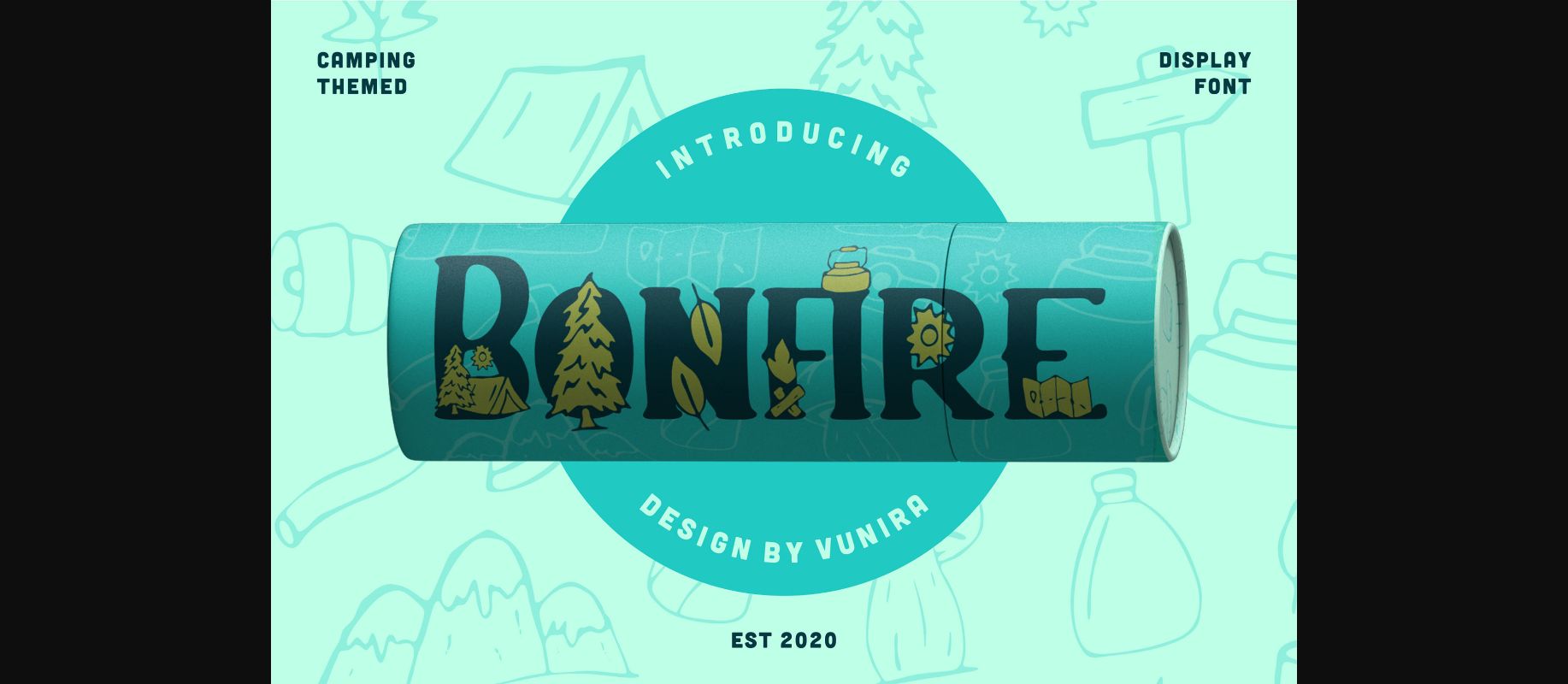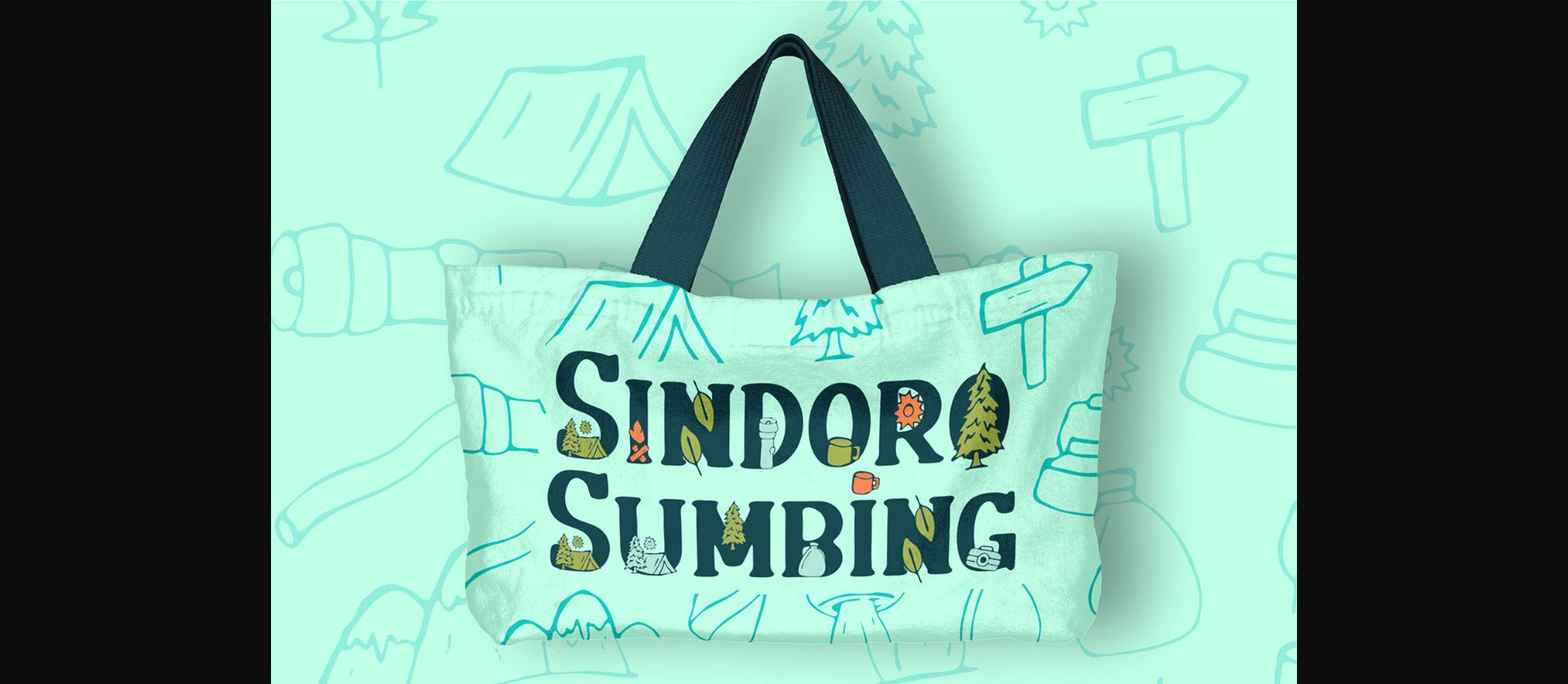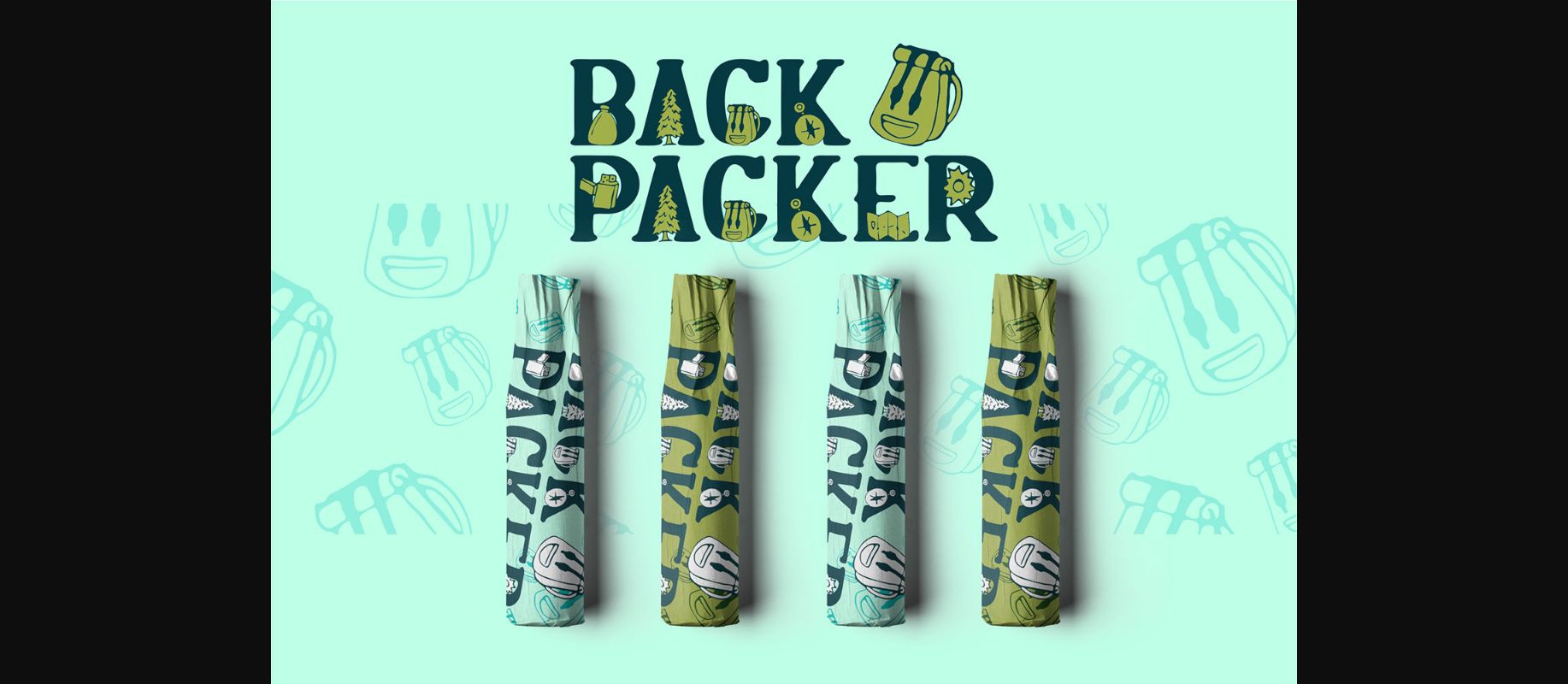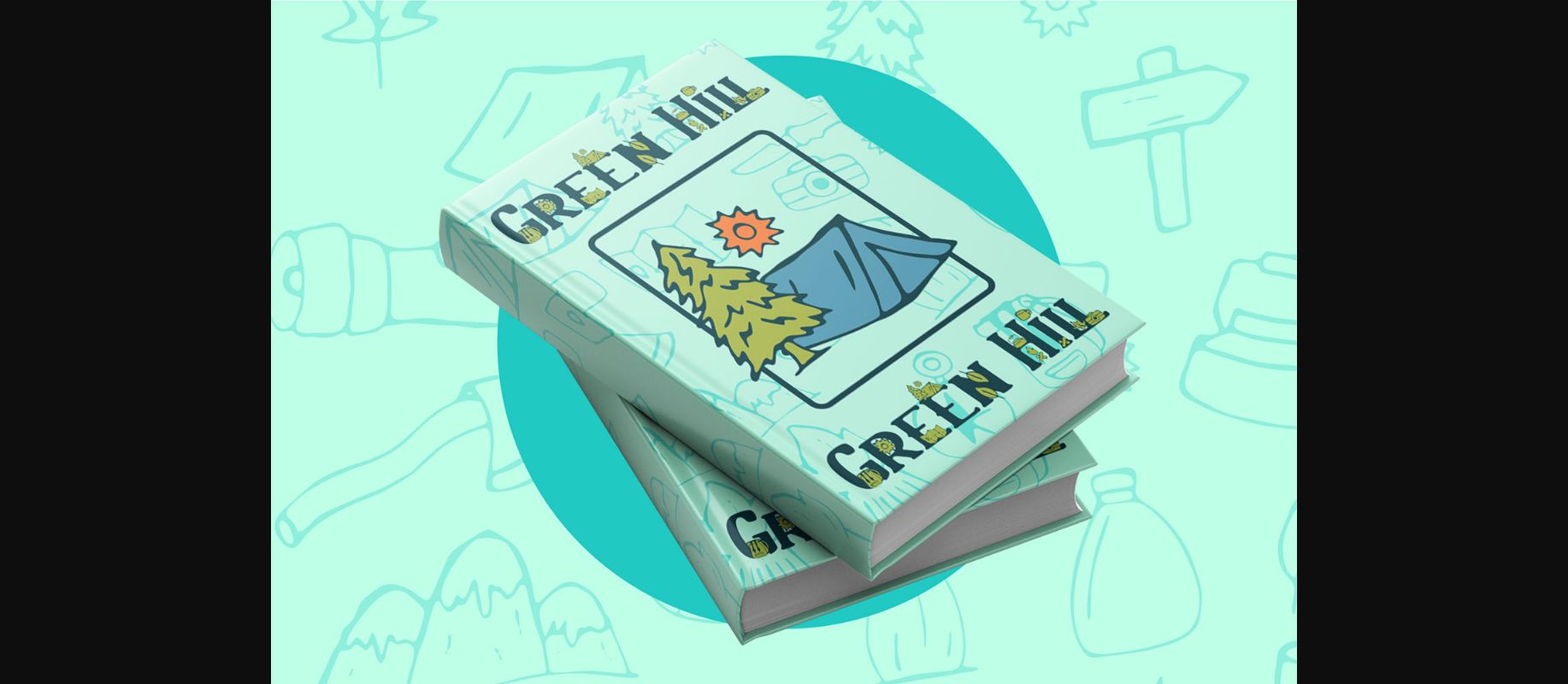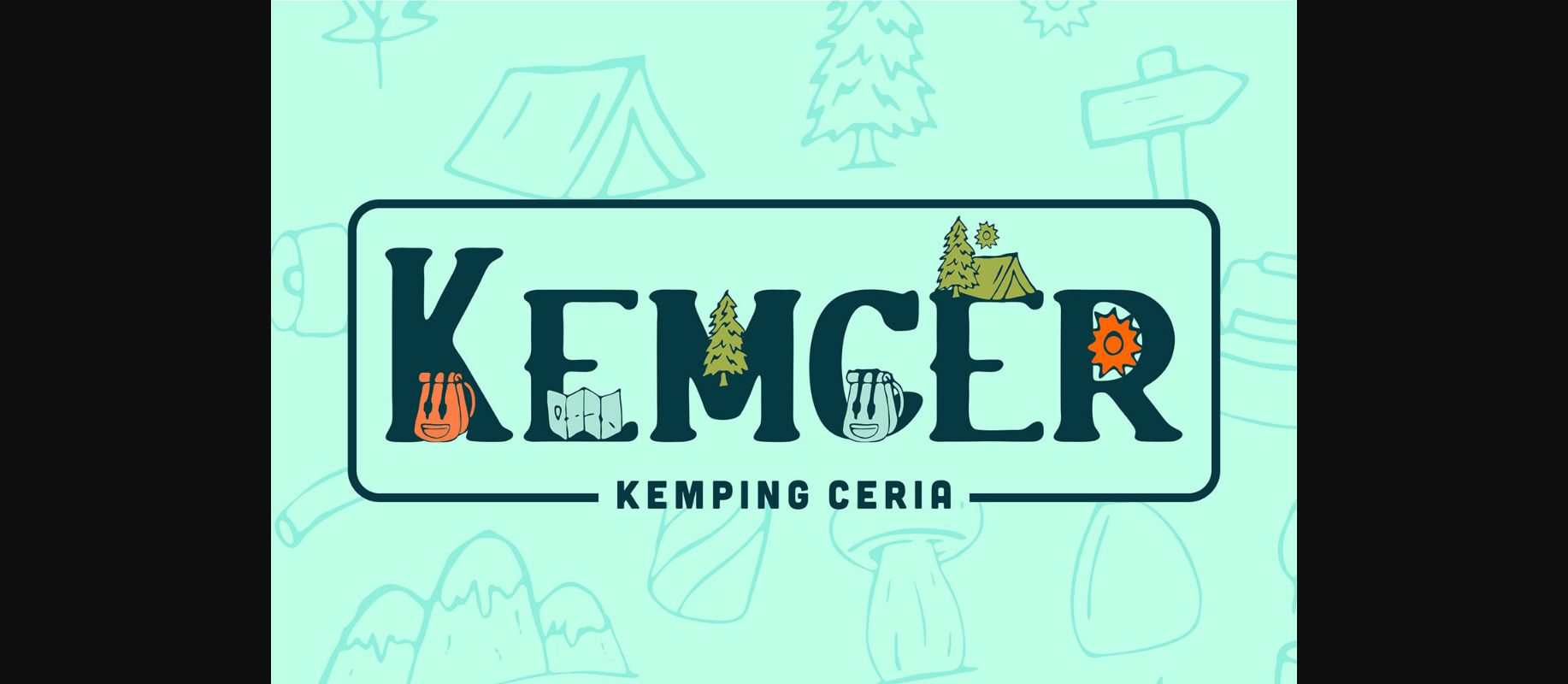
About Bonfire Font
Perfect for this time of the year, Bonfire is an original and fun decorative font. Add it each of your autumn and camp related ideas and notice how they come alive!